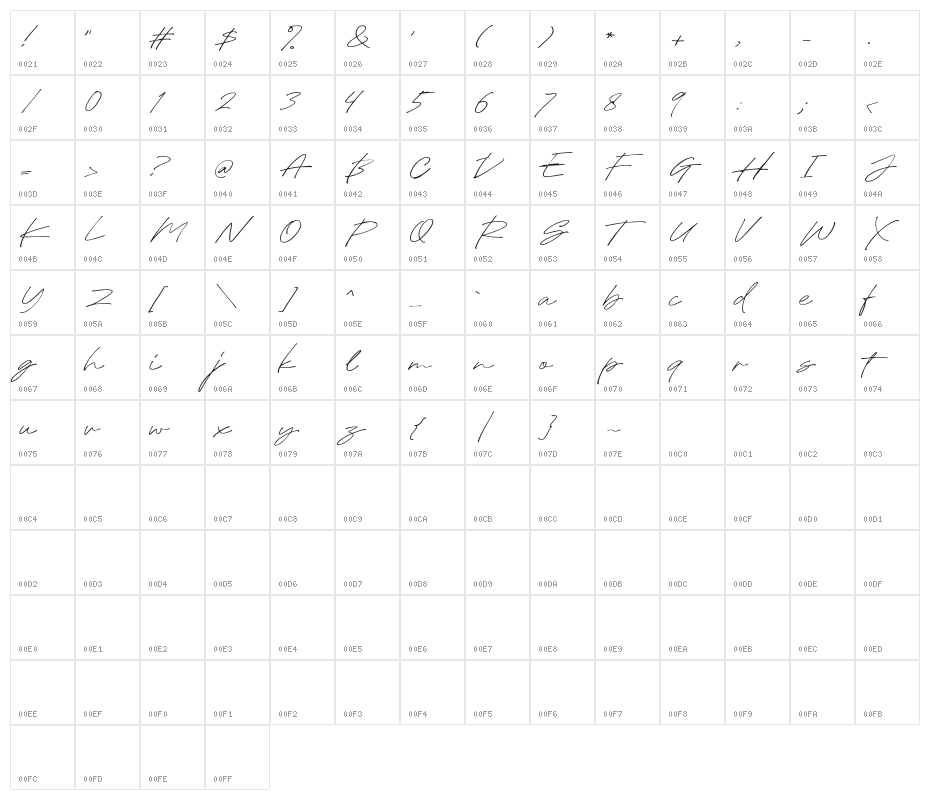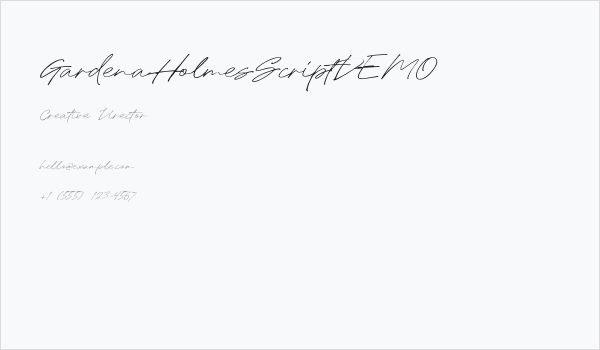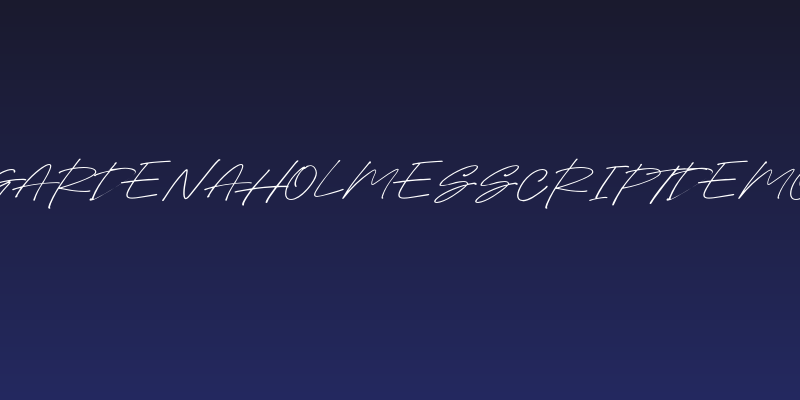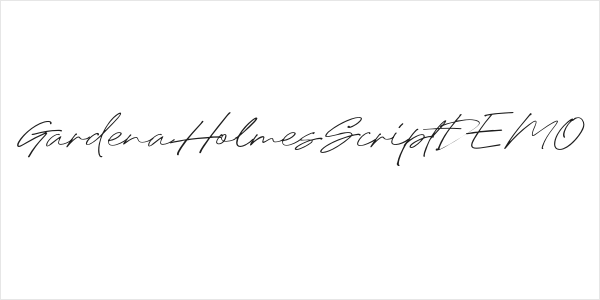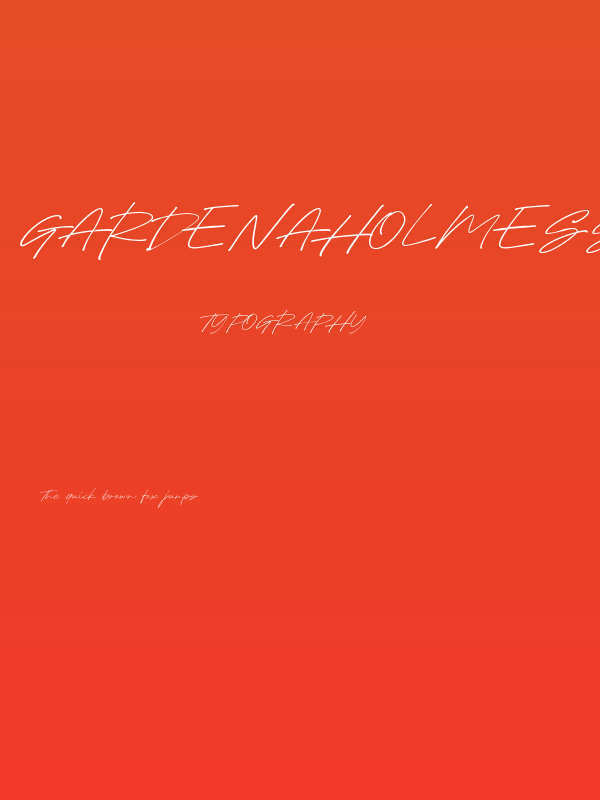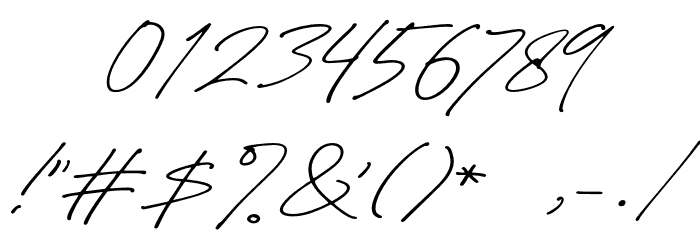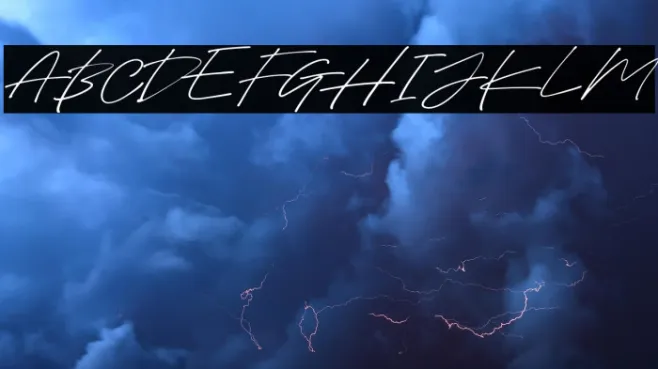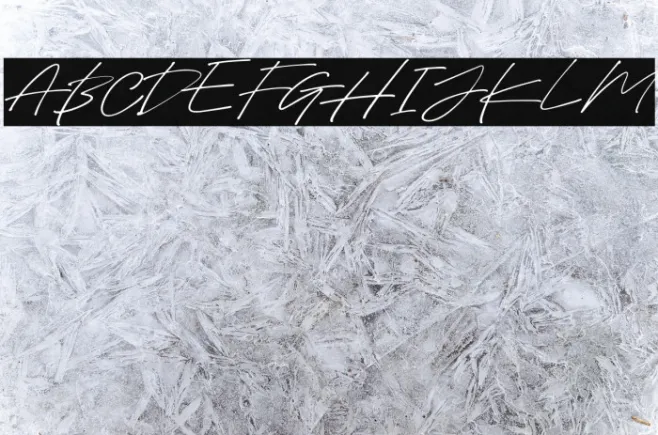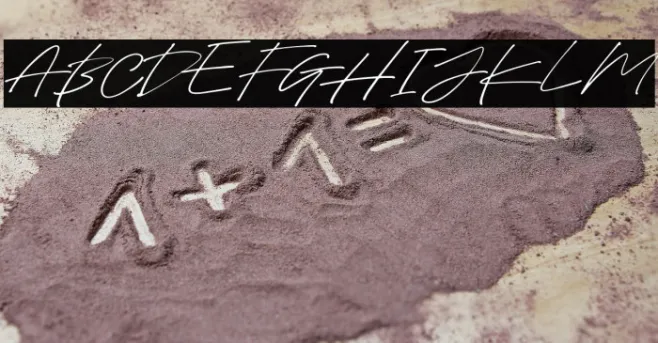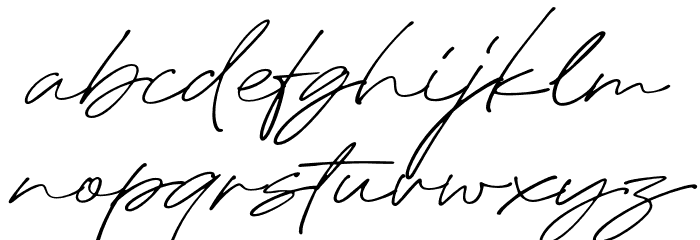
GardenaHolmesScriptDEMO Font
GardenaHolmesScriptDEMO Description
This font features a flowing, cursive style that mimics natural handwriting with a touch of elegance. The letters are connected, creating a seamless and fluid appearance. The strokes are thin and delicate, with a consistent slant that adds to the script's graceful look. The uppercase letters are slightly larger and more pronounced, while the lowercase letters maintain a smooth and continuous flow. The numbers and special characters are designed to match the overall aesthetic, ensuring a cohesive look across all characters. This font exudes a sense of sophistication and personal touch, making it ideal for projects that require a handwritten feel.
| Use Case | Logos, Invitations, Personal Correspondence |
| Proposed Projects | Ideal for wedding invitations, personal letters, branding, and any project requiring a personal, elegant touch. |